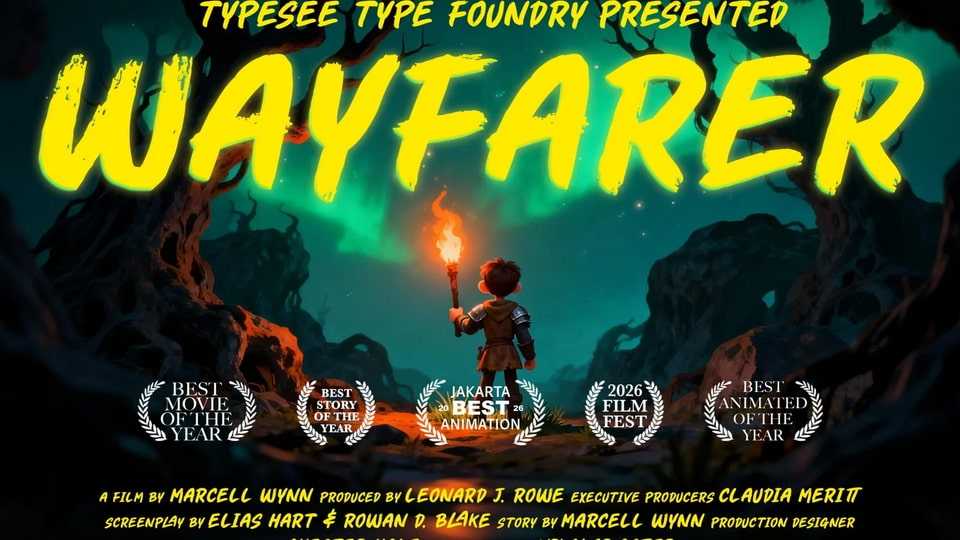
Download Wayfarer font, a bold handwritten display typeface filled with cinematic emotion and adventure spirit, perfect for movie posters, travel themes, and storytelling visuals.
Designer: Typesee Typefoundry